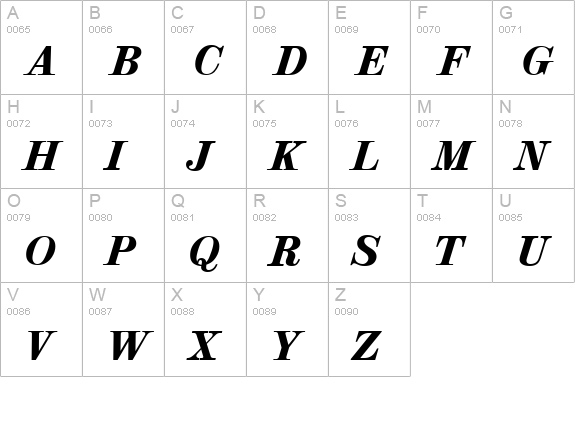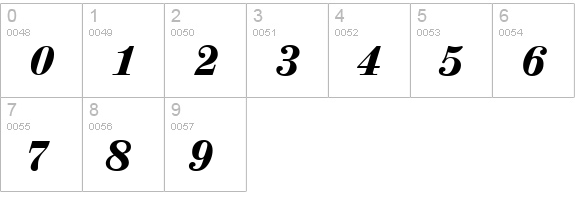
ValenciaSerial-Heavy-Italic is a heavy, high-impact, italic variant in the ValenciaSerial typeface family \xE2\x80\x94 well suited to high-impact headlines, posters, and display advertising.
ValenciaSerial-Heavy-Italic is a stunning and bold font that exudes elegance and sophistication. With its unique heavy weight and italic styling, this font is perfect for creating eye-catching designs that demand attention. The slanted letters add a dynamic and modern touch to any project, making it ideal for headings, titles, and other prominent text elements. What sets ValenciaSerial-Heavy-Italic apart is not only its striking appearance but also its versatility. This font can be used in a variety of design projects, from branding and advertising to packaging and web design. Its strong presence and distinct personality make it a standout choice for anyone looking to make a statement with their typography. Best of all, ValenciaSerial-Heavy-Italic is available for free download at FontsMarket.com. This means you can easily access and use this exceptional font in your projects without any cost. Don't miss out on the opportunity to enhance your designs with the bold and captivating style of ValenciaSerial-Heavy-Italic – download it today and take your creations to the next level!